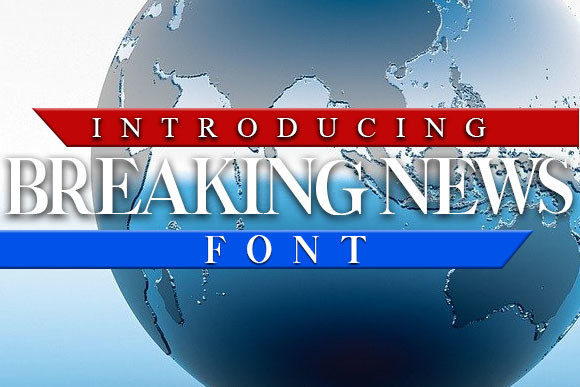
Breaking News Font: The Ultimate Choice for Impactful Designs
In the world of graphic design, typography plays a crucial role in conveying messages and capturing the audience’s attention. When it comes to creating a sense of urgency or importance, a bold and assertive font is essential. This is where the Breaking News Font comes into play. In this article, we’ll explore the features and benefits of this amazing serif font and how it can elevate your design ideas to the next level.
What is Breaking News Font?
Breaking News Font is a serif font designed to convey a sense of urgency and importance. Its bold and assertive style makes it perfect for creating attention-grabbing headlines, titles, and announcements. The font is carefully crafted to ensure that it stands out from the rest, making it an excellent choice for designers looking to add a touch of drama to their work.
Key Features of Breaking News Font
- Assertive and Bold Style: The Breaking News Font boasts an assertive and bold style that demands attention.
- Serif Design: The font features a classic serif design, which adds a touch of sophistication and elegance to any design.
- High Readability: Despite its bold style, the font remains highly readable, making it perfect for use in a variety of design applications.
- Versatile: The Breaking News Font is versatile and can be used in a range of design projects, from posters and flyers to digital graphics and websites.
Benefits of Using Breaking News Font
The Breaking News Font offers a range of benefits that make it an excellent choice for designers. Some of the key benefits include:
- Grabs Attention: The font’s bold and assertive style ensures that it grabs the audience’s attention, making it perfect for creating attention-grabbing headlines and titles.
- Conveys Urgency: The font’s design conveys a sense of urgency, making it ideal for creating announcements, alerts, and other time-sensitive messages.
- Enhances Readability: The font’s high readability ensures that the message is conveyed clearly and effectively, even at smaller font sizes.
- Elevates Design: The Breaking News Font adds a touch of sophistication and elegance to any design, elevating it to the next level.
How to Use Breaking News Font in Your Designs
Using the Breaking News Font in your designs is easy. Here are some tips to get you started:
- Headlines and Titles: Use the font for headlines and titles to create attention-grabbing text that demands attention.
- Posters and Flyers: The font is perfect for creating posters and flyers that require bold and assertive text.
- Digital Graphics: Use the font in digital graphics, such as social media graphics and website headers, to add a touch of drama and sophistication.
- Websites: The font can be used on websites to create attention-grabbing headlines and titles that elevate the design.
Tips for Getting the Most Out of Breaking News Font
Here are some tips for getting the most out of the Breaking News Font:
- Experiment with Font Sizes: Experiment with different font sizes to find the perfect balance between boldness and readability.
- Pair with Other Fonts: Pair the Breaking News Font with other fonts to create a unique and visually appealing design.
- Use Color Effectively: Use color effectively to enhance the font and create a cohesive design.
- Keep it Simple: Keep the design simple and avoid clutter to ensure that the font remains the focal point.
In conclusion, the Breaking News Font is an assertive and awesome serif font that can elevate your design ideas to the next level. Its bold and assertive style, high readability, and versatility make it an excellent choice for designers looking to create attention-grabbing headlines, titles, and announcements. By following the tips outlined in this article, you can get the most out of the Breaking News Font and create stunning designs that leave a lasting impression.